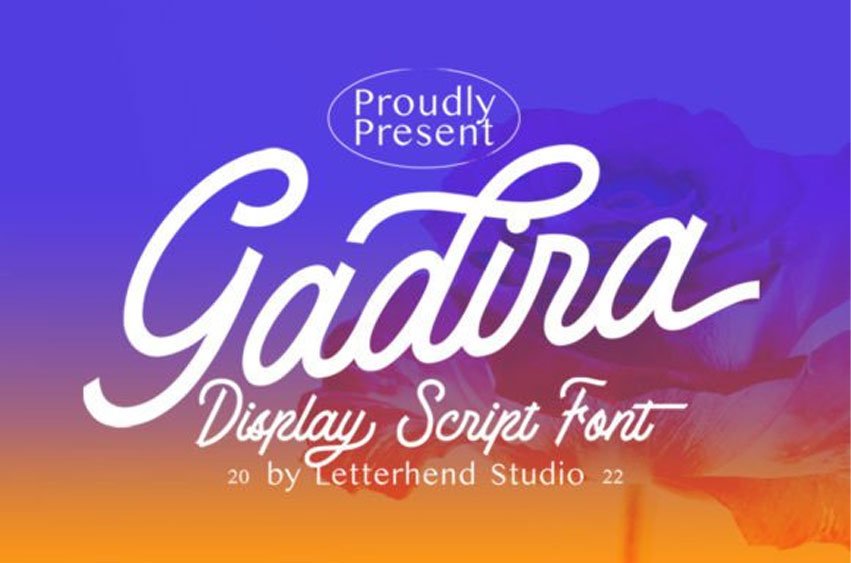
Gadira Font is a casual and stylish script display font.
Add it to your most creative ideas, and notice how it transforms them into authentic pieces of art!